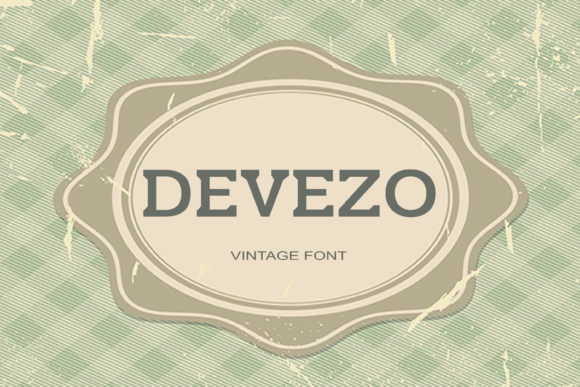
Introducing Devezo, the retro typography inspired by the 80's: a bold, captivating serif font family.
Devezo is a font that speaks to those who crave a touch of nostalgia, a dash of vintage cool in their designs. Each letter is meticulously crafted to evoke the essence of a bygone era, capturing the spirit of a decade that was known for its bold and memorable style.
With its sharp angles, geometric shapes, and slightly elongated serifs, Devezo exudes confidence and personality. It's a font that demands attention, making it perfect for headlines, logos, posters, and any design that seeks to make a lasting impact.
But Devezo isn't just about aesthetics; it's also highly versatile, lending itself effortlessly to a wide range of design projects. Whether you're creating a retro-inspired poster, a modern website, or a sleek social media campaign, Devezo has the adaptability to fit seamlessly into your vision.
So, if you're ready to add some retro flair to your designs, to embrace the bold and captivating spirit, look no further than Devezo. Let its vintage charm transport you to another time, while its versatility empowers you to create designs that are uniquely yours.